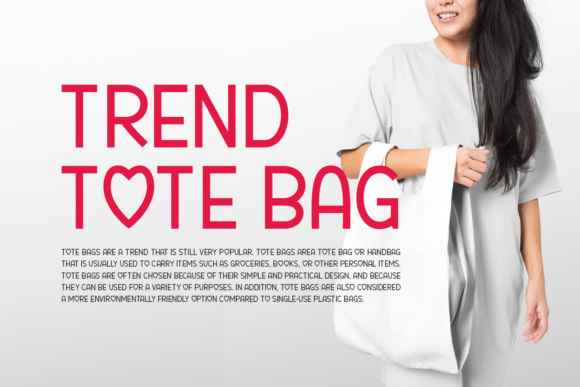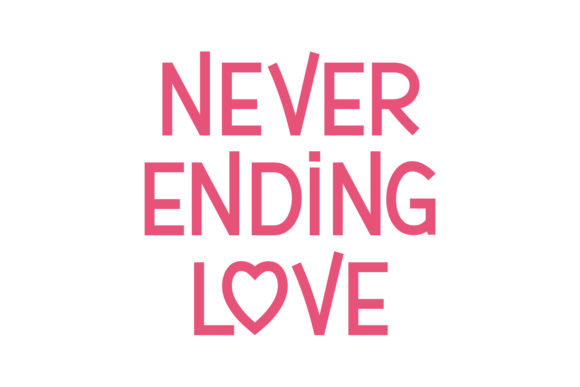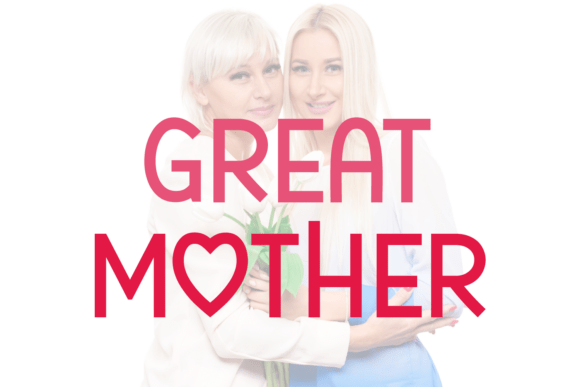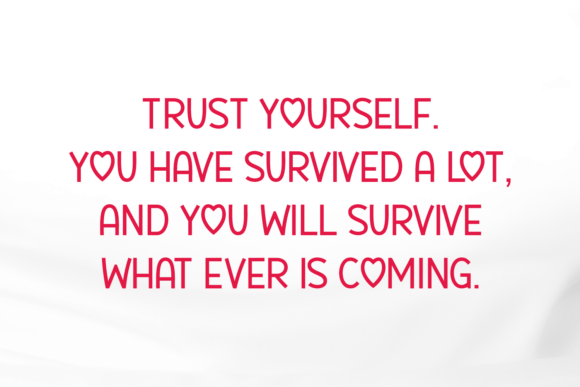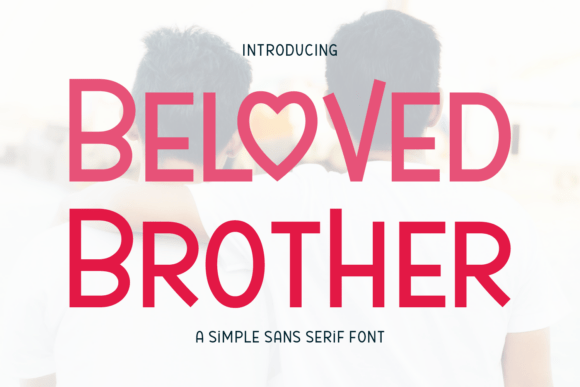
Introducing Beloved Brother Font: The Ultimate Choice for Designers and Crafters
In the world of typography, a good font can make all the difference in the success of a design project. Whether you’re a professional designer or a crafter, finding the right font can be a daunting task. However, if you’re looking for a playful and loving sans serif font that exudes charm and elegance, look no further than Beloved Brother Font. In this article, we’ll explore the features and benefits of Beloved Brother Font, and why it’s the perfect choice for your next design project.
What is Beloved Brother Font?
Beloved Brother Font is a modern sans serif font designed with maximum readability and legibility in mind. Its clean and charming aesthetic makes it perfect for a wide range of design applications, from templates and magazine fonts to advertising branding, headlines, logos, invitations, and more. With its playful and loving personality, Beloved Brother Font is sure to add a touch of warmth and personality to any design project.
Key Features of Beloved Brother Font
So, what makes Beloved Brother Font so special? Here are some of its key features:
- Playful and Loving Design: Beloved Brother Font has a unique and charming design that is sure to capture the attention of your audience. Its playful and loving personality makes it perfect for designs that require a touch of warmth and personality.
- Clean and Modern Aesthetic: The font has a clean and modern aesthetic that makes it perfect for a wide range of design applications. Its sans serif design ensures maximum readability and legibility, even at small font sizes.
- Highly Versatile: Beloved Brother Font is highly versatile and can be used for a wide range of design applications, including templates, magazine fonts, advertising branding, headlines, logos, invitations, and more.
- Elegant and Sophisticated: Despite its playful and loving personality, Beloved Brother Font is also elegant and sophisticated, making it perfect for designs that require a touch of luxury and refinement.
Why Choose Beloved Brother Font?
So, why should you choose Beloved Brother Font for your next design project? Here are some reasons:
- Maximum Readability and Legibility: Beloved Brother Font is designed with maximum readability and legibility in mind, ensuring that your text is easy to read and understand.
- Unique and Charming Design: The font has a unique and charming design that is sure to capture the attention of your audience and set your design apart from the rest.
- Highly Versatile: Beloved Brother Font is highly versatile and can be used for a wide range of design applications, making it a great addition to any designer’s or crafter’s toolkit.
- Elegant and Sophisticated: The font is elegant and sophisticated, making it perfect for designs that require a touch of luxury and refinement.
How to Use Beloved Brother Font
Beloved Brother Font is easy to use and can be incorporated into a wide range of design applications. Here are some ideas:
- Templates: Use Beloved Brother Font to create stunning templates for your next design project.
- Magazine Fonts: The font is perfect for magazine fonts, adding a touch of elegance and sophistication to your publication.
- Advertising Branding: Use Beloved Brother Font to create eye-catching advertising branding that captures the attention of your audience.
- Headlines: The font is perfect for headlines, adding a touch of playfulness and love to your title.
- Logos: Use Beloved Brother Font to create stunning logos that reflect the personality of your brand.
- Invitations: The font is perfect for invitations, adding a touch of elegance and sophistication to your event.
- Elegant Crafting: Beloved Brother Font is also perfect for elegant crafting, adding a touch of luxury and refinement to your project.
- Beauty Design: The font is perfect for beauty design, adding a touch of elegance and sophistication to your project.
| Font Name | Beloved Brother Font |
| Author | Eightde |
In conclusion, Beloved Brother Font is a playful and loving sans serif font that is perfect for designers and crafters looking for a clean and charming aesthetic. With its highly versatile design, elegant and sophisticated personality, and maximum readability and legibility, Beloved Brother Font is the perfect choice for a wide range of design applications. Whether you’re creating templates, magazine fonts, advertising branding, headlines, logos, invitations, or elegant crafting and beauty designs, Beloved Brother Font is sure to add a touch of warmth and personality to your project.